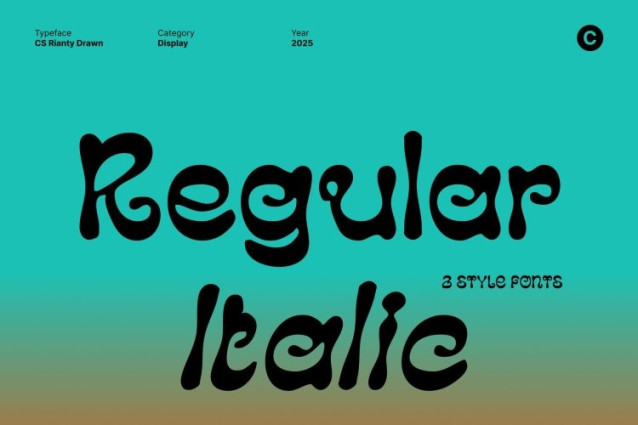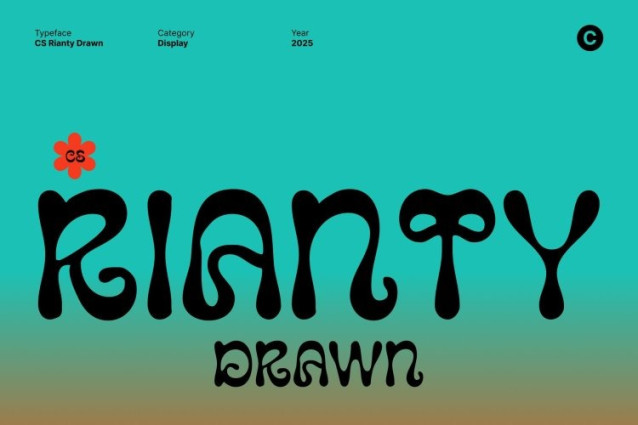
CS Rianty Drawn Font With a strong trippy aesthetic, this display font features psychedelic curves and fluid shapes that feel bold, experimental, and visually expressive. Its unconventional structure creates a sense of movement and rhythm, making every word feel alive, dynamic, and full of creative energy. The font instantly delivers a funky, mind-bending visual impact.
Hand-Drawn Character for Playful Expression
The hand-drawn character adds an organic, handcrafted touch that enhances the font’s playful mood. Subtle imperfections and natural strokes soften the experimental forms, giving the typography warmth, personality, and artistic freedom. This detail makes the font feel expressive rather than rigid, perfect for creative exploration.
Perfect for Music Branding, Posters, and Funky Editorials
Ideal for music branding, album covers, posters, event visuals, and experimental editorial layouts, this font thrives in projects that celebrate creativity and individuality. Its psychedelic style ensures your designs stand out with a bold and memorable identity.
Experimental, Playful, and Visually Hypnotic
By blending trippy psychedelic forms with a handcrafted drawn touch, this font delivers a unique typographic experience. It’s the perfect choice for designers seeking an expressive, funky, and visually hypnotic display font that captures attention and fuels creative storytelling.